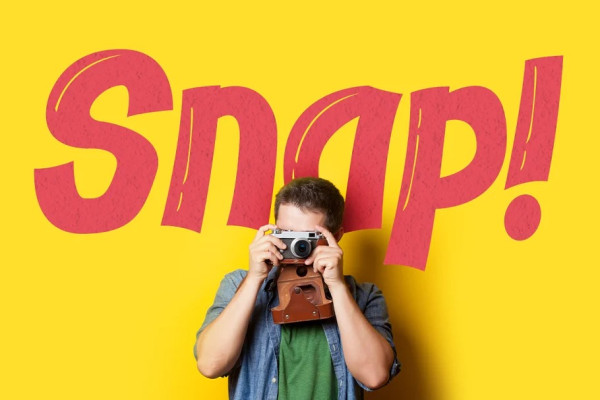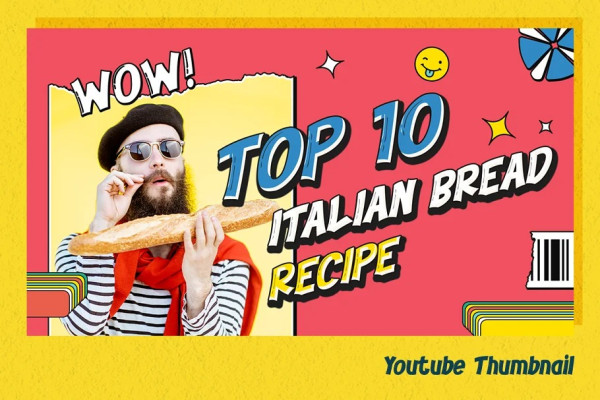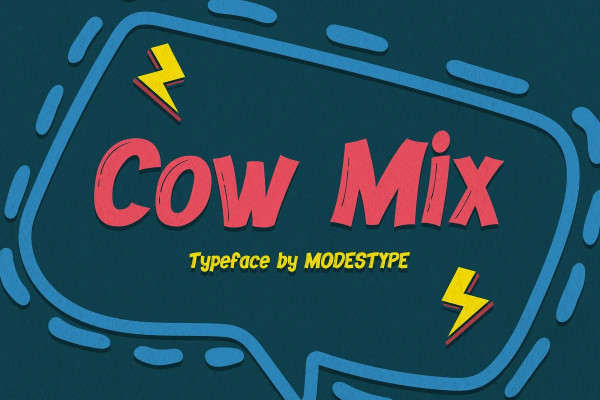
Cow Mix Font
Cow Mix Font – Fun Display Font. Looking rough and also have expressive lines in it, Cow Mix will bring everything into a comical way. A punchline with Cow Mix being used, will bring a triple effect of joy to the audience.
Suit perfectly for comical children books market, online games, teens event poster, school supplies font, poster, movie title, youtube covers, youtube thumbnails, social media page covers and so on…